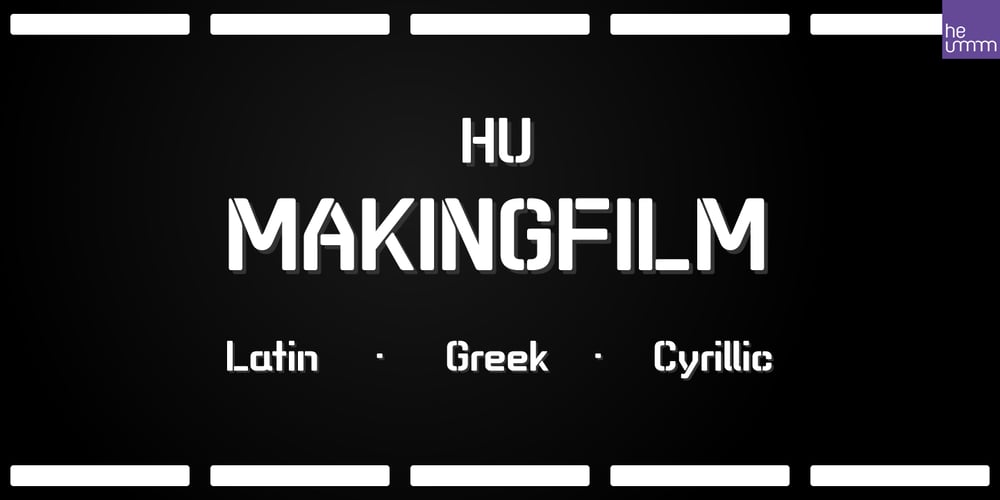
HU Makingfilm Font Family was designed by SangHyeon Park, Jihoon Park and published by Heummdesign. HU Makingfilm contains 2 styles and family package options. HU Makingfilm gives a solid feeling of a full module, and it is a font that adds softness by rolling the angled part.